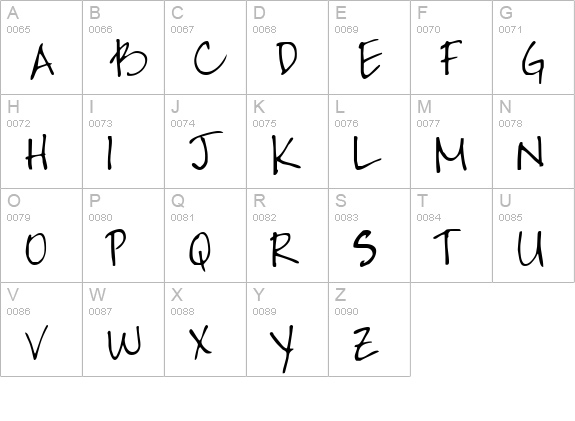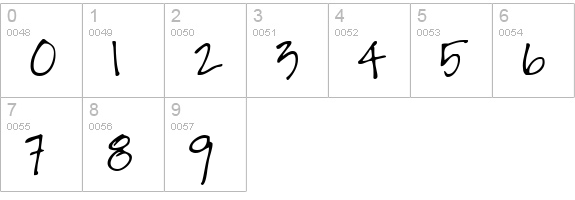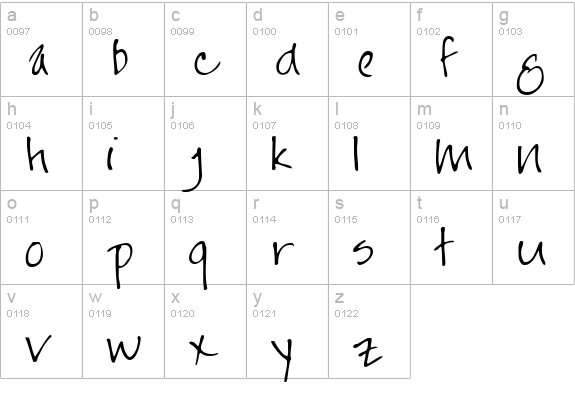
Jayne Print Hand Font Details
Jayne Print Hand font is a charming and whimsical typeface that exudes a playful and handwritten feel. With its distinctive hand-drawn look and elegant curves, this font is perfect for adding a personal touch to your projects. Whether you are creating invitations, greeting cards, or branding materials, Jayne Print Hand font will surely make your designs stand out. What's even better is that Jayne Print Hand font is completely free to download at FontsMarket.com. You can easily access this beautiful font and start using it in your creative projects without any cost. Don't miss out on this opportunity to enhance your designs with the unique charm of Jayne Print Hand font.